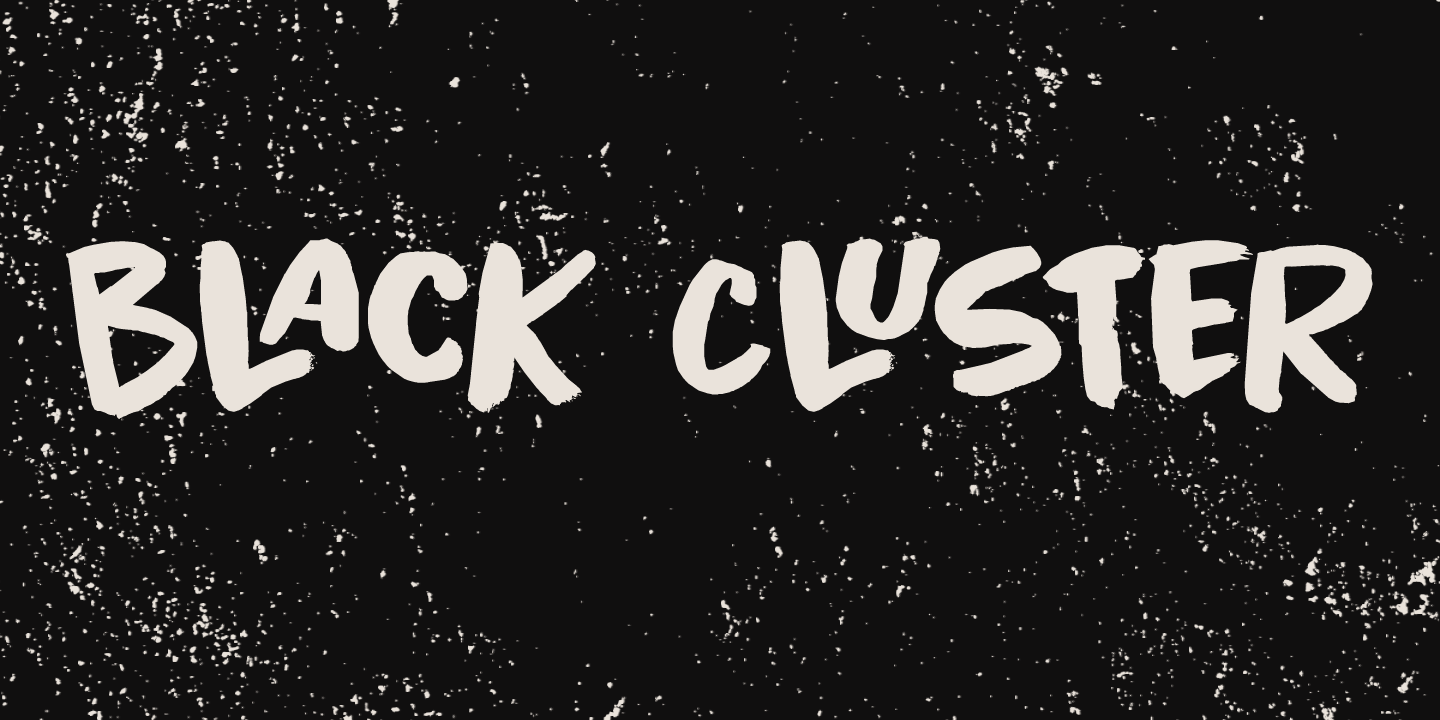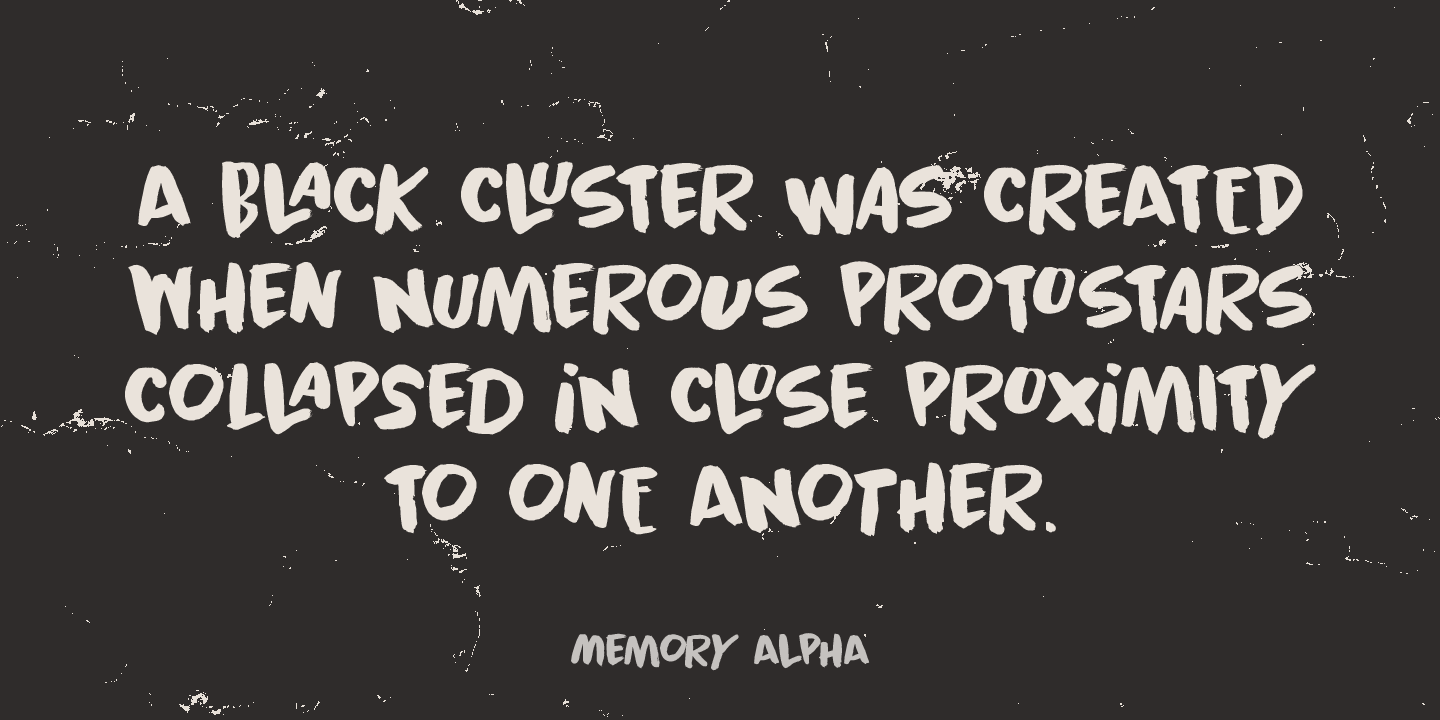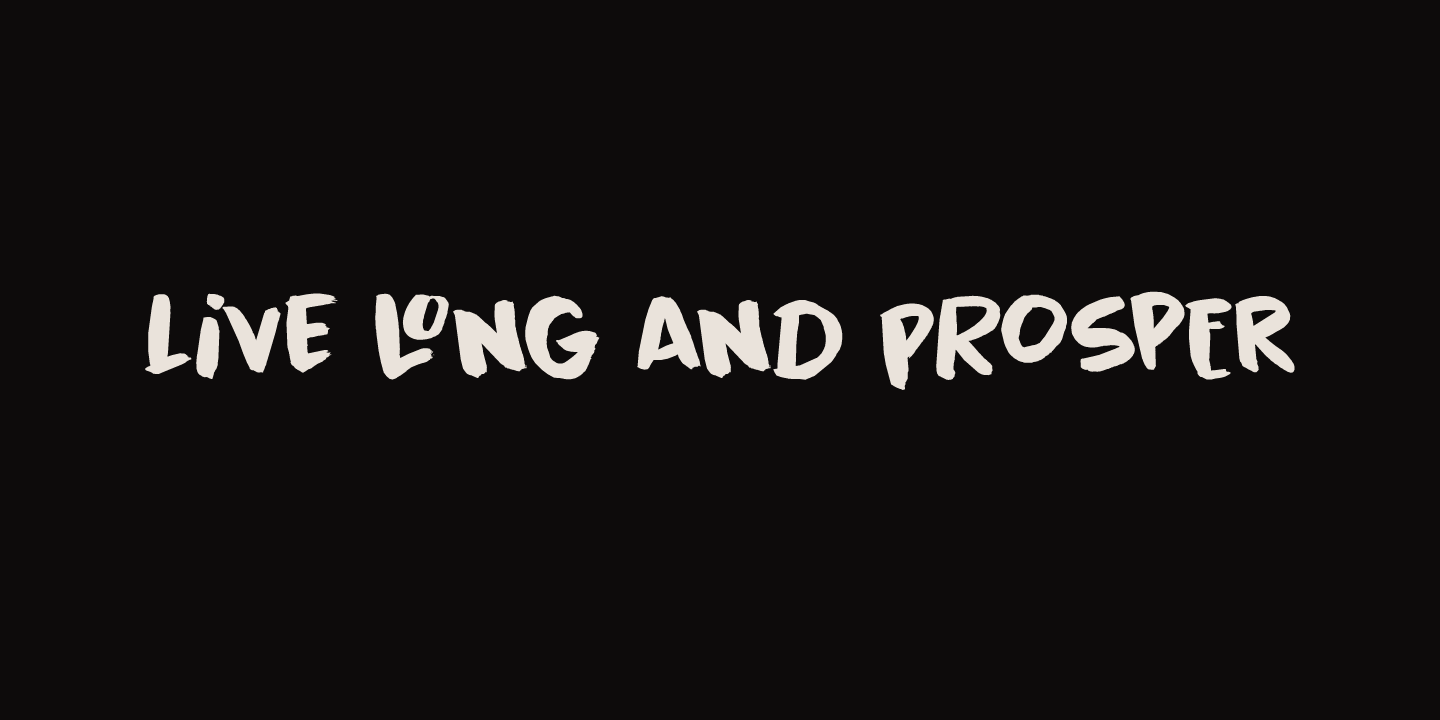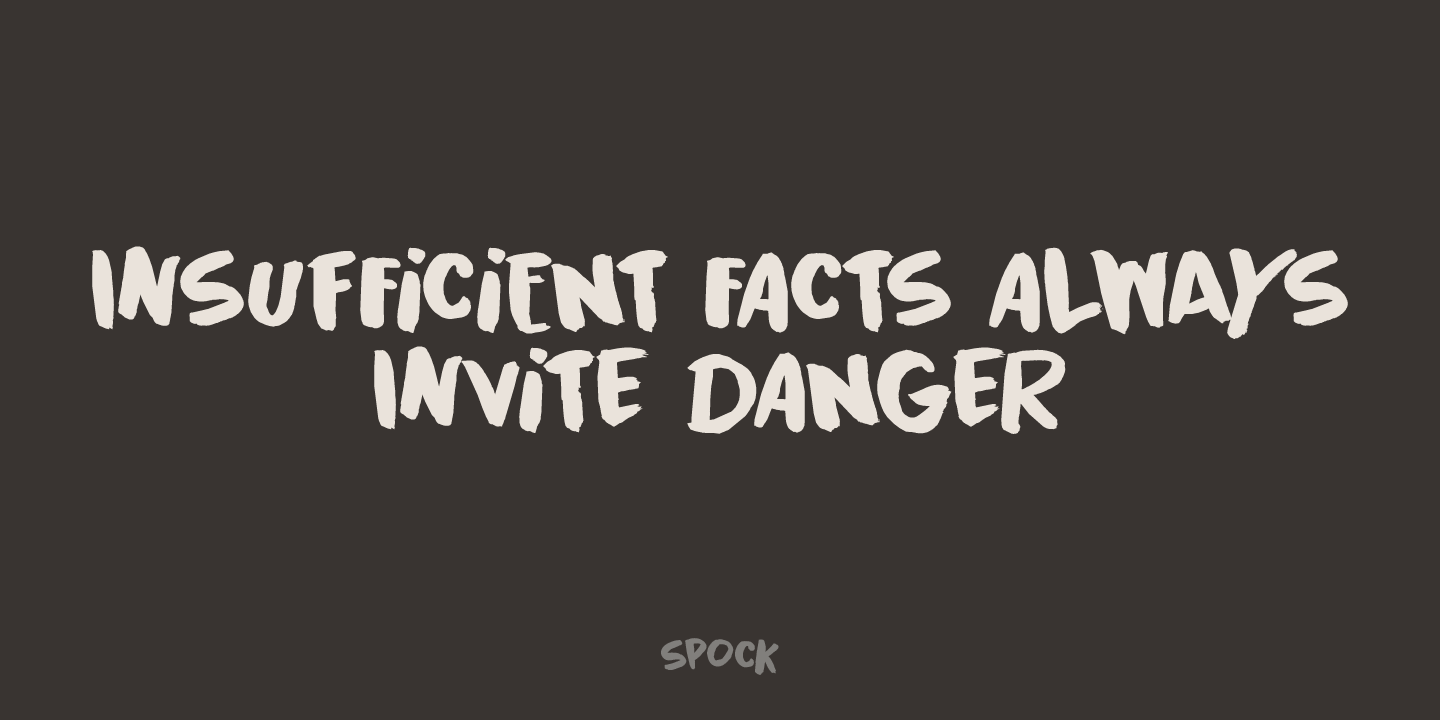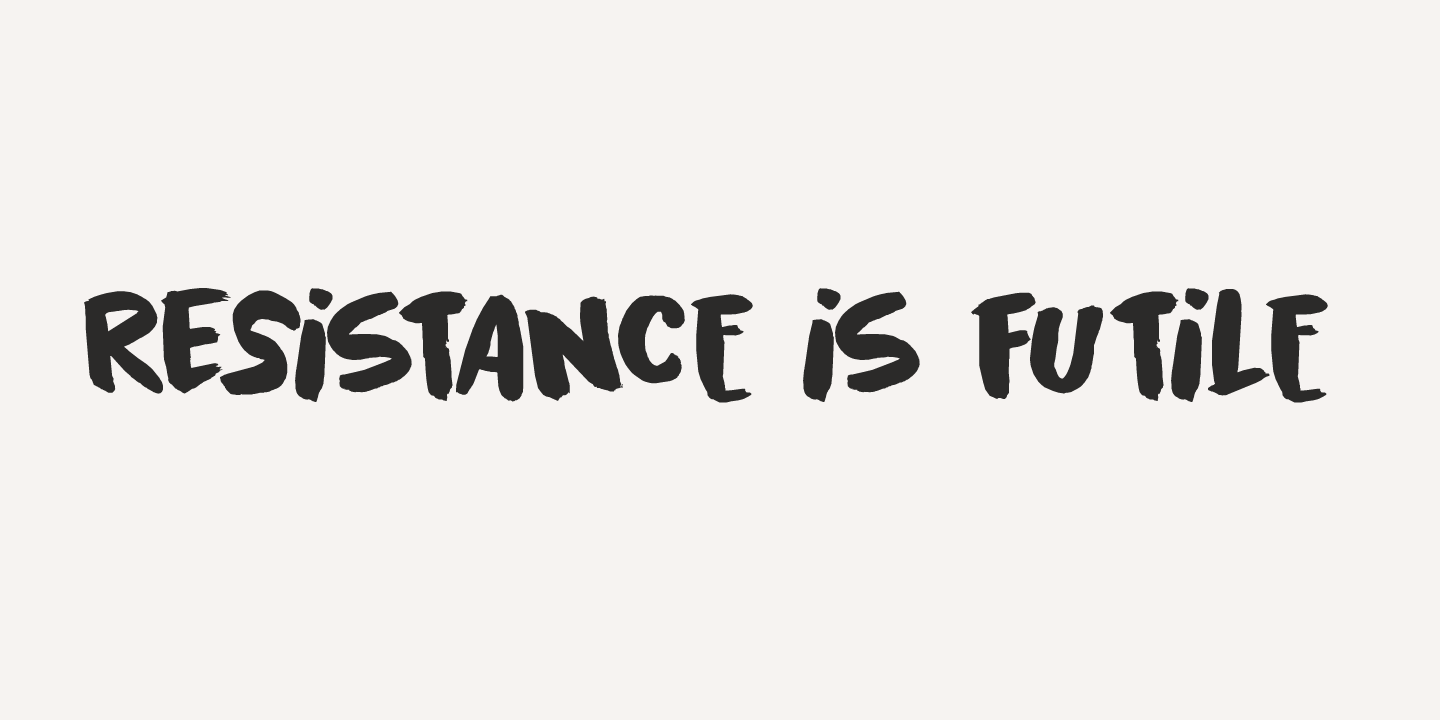
Black Cluster
First things first: I am really not a Star Trek fan. I did come up with this name, which I thought had a good ring to it. When I checked whether the name was already taken, I found out that Black Cluster is a term from Star Trek. Now you want to know what a Black Cluster is, so just check out poster 2 and read all about it.
For me, Black Cluster is a handmade ink font, with a lot of jumping glyphs, a lot of diacritics and a handful of ligatures. It may be rough, but you will be pleasantly surprised by what it can do to a design!
May the font be with you. Oh, no, that was from Star Wars?